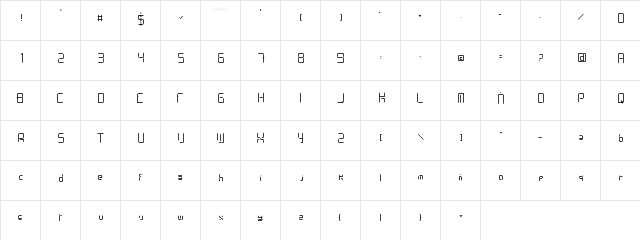
Limh Regular
| Designer | fodkito |
Design Context for Limh Typeface
Limh takes a measured approach to typography — its balanced proportions and neutral character make it a reliable workhorse for both digital and print work.